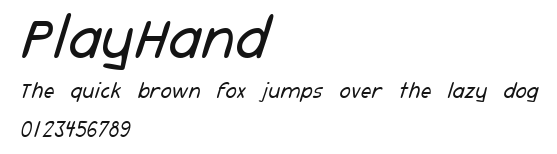
PlayHand Preview
• Font Name: PlayHand
• Full Font Name: PlayHand Italic
About PlayHand.ttf
PlayHand.ttf is a modern, elegant sans-serif font designed for ultimate readability and visual harmony. Perfect for branding, headlines, web design, and print materials.